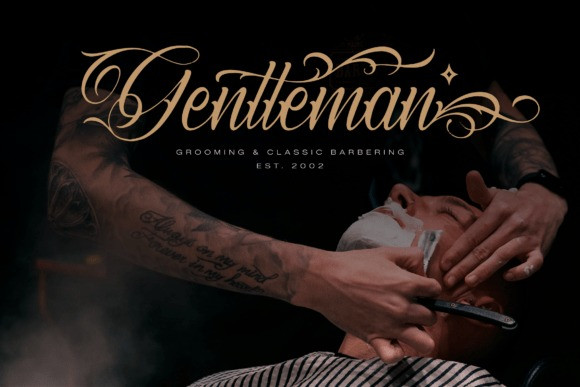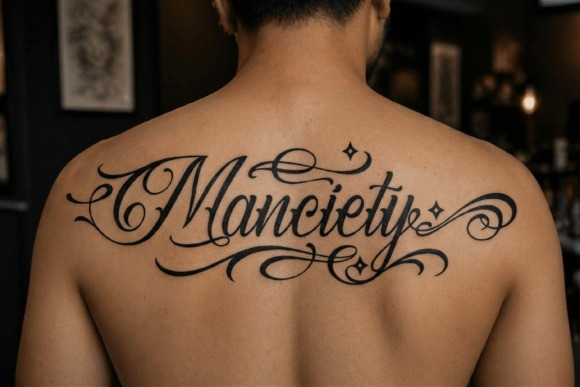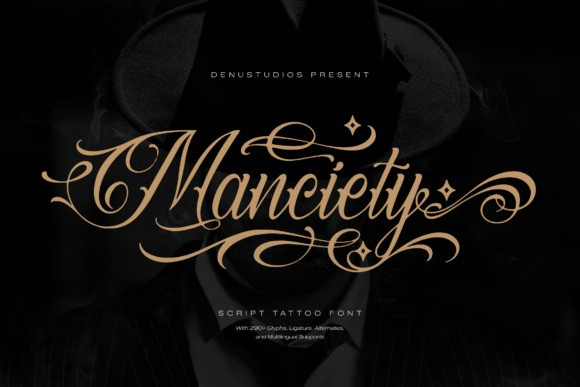
Manciety Font
Manciety Font a premium script tattoo font. This typeface is a masterpiece of calligraphic precision, featuring high-contrast strokes and dramatic, sweeping flourishes that evoke the rebellious elegance of classic “Chicano” style lettering. Manciety offers unparalleled versatility for high-end branding. It is an extraordinary choice for masculine grooming products, luxury streetwear logos, custom automotive branding, and bold editorial headers. Manciety delivers a sense of polished artisanal power and unyielding creative character, ensuring your brand makes a legendary and permanent impression.